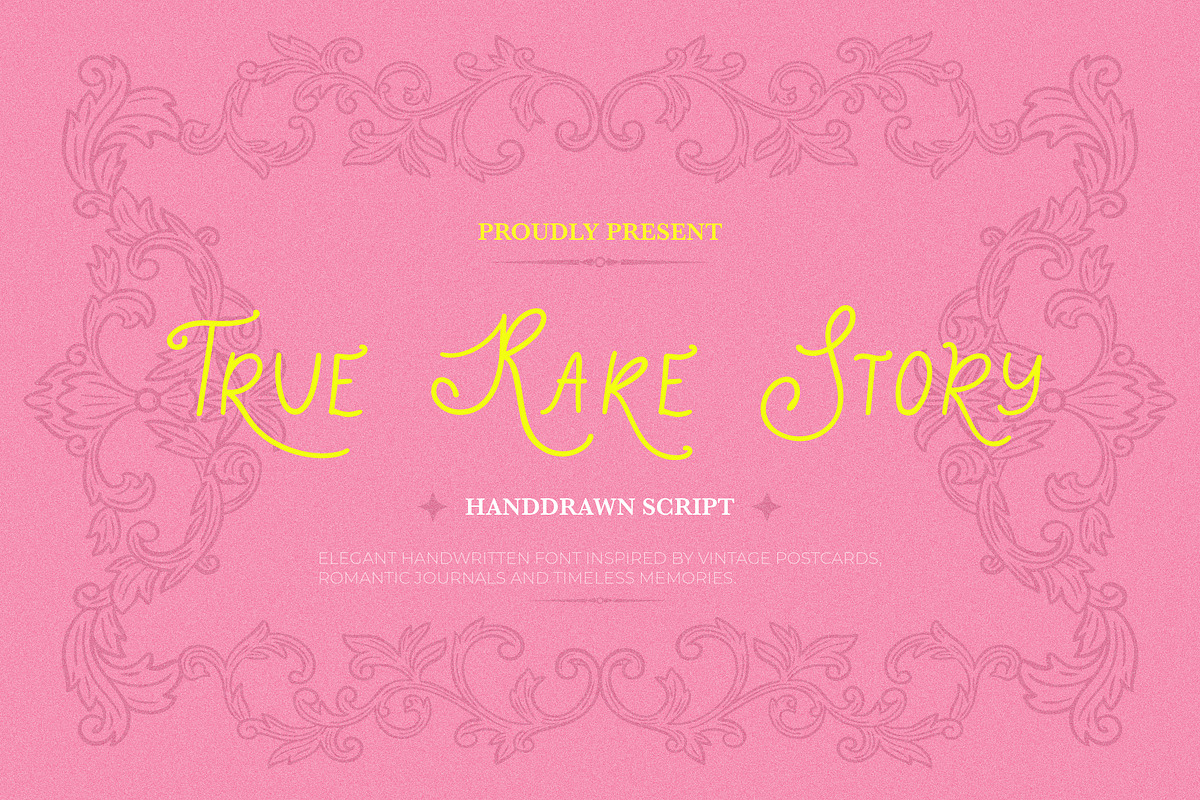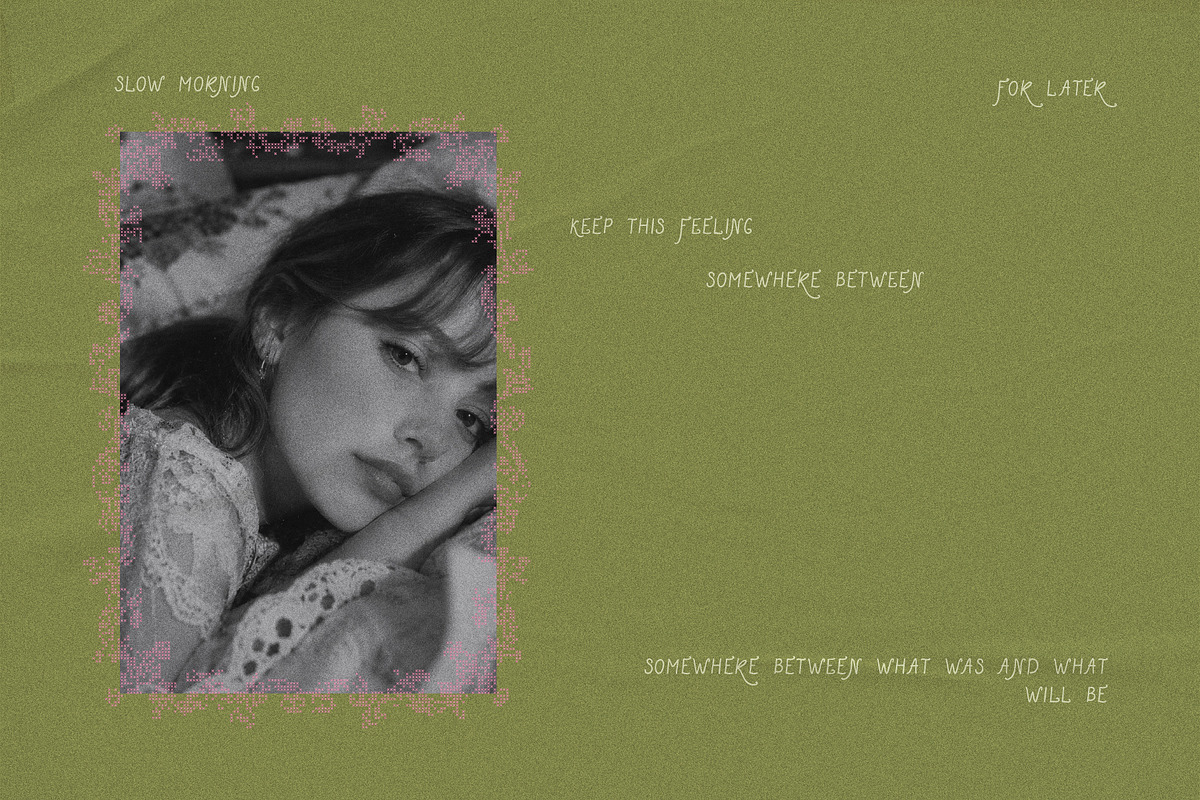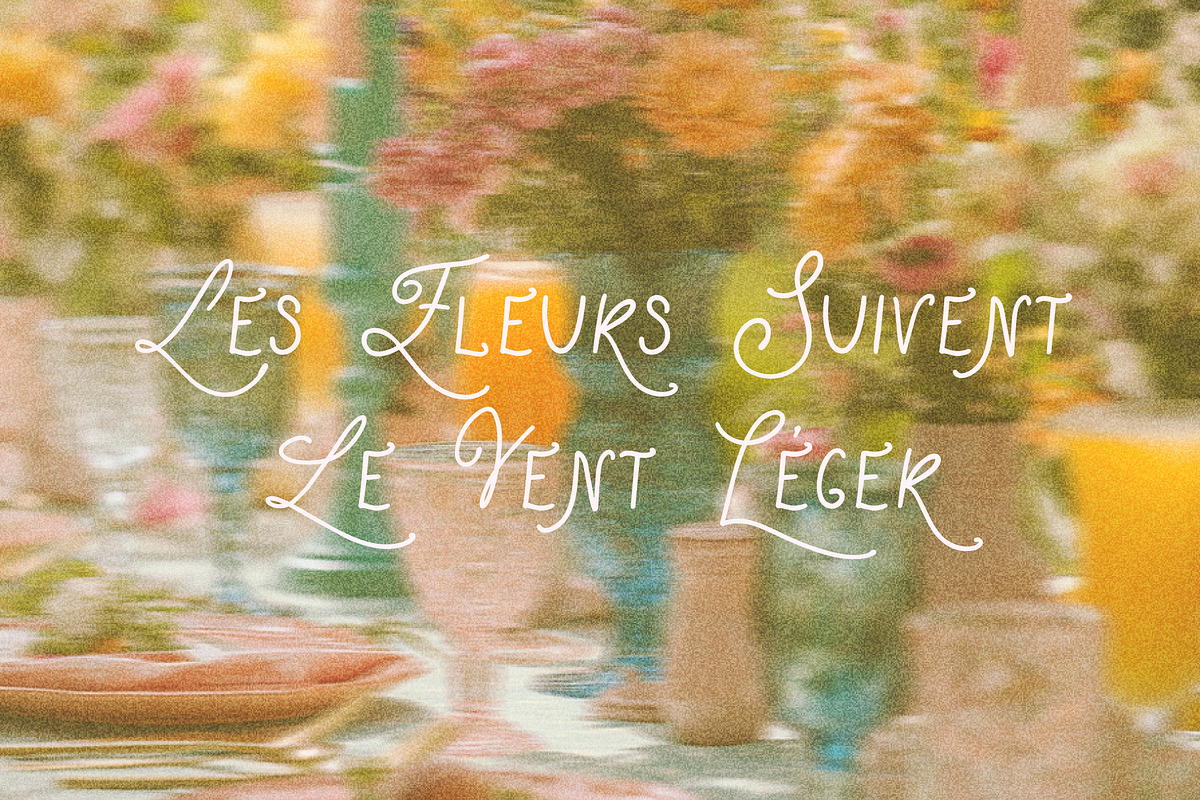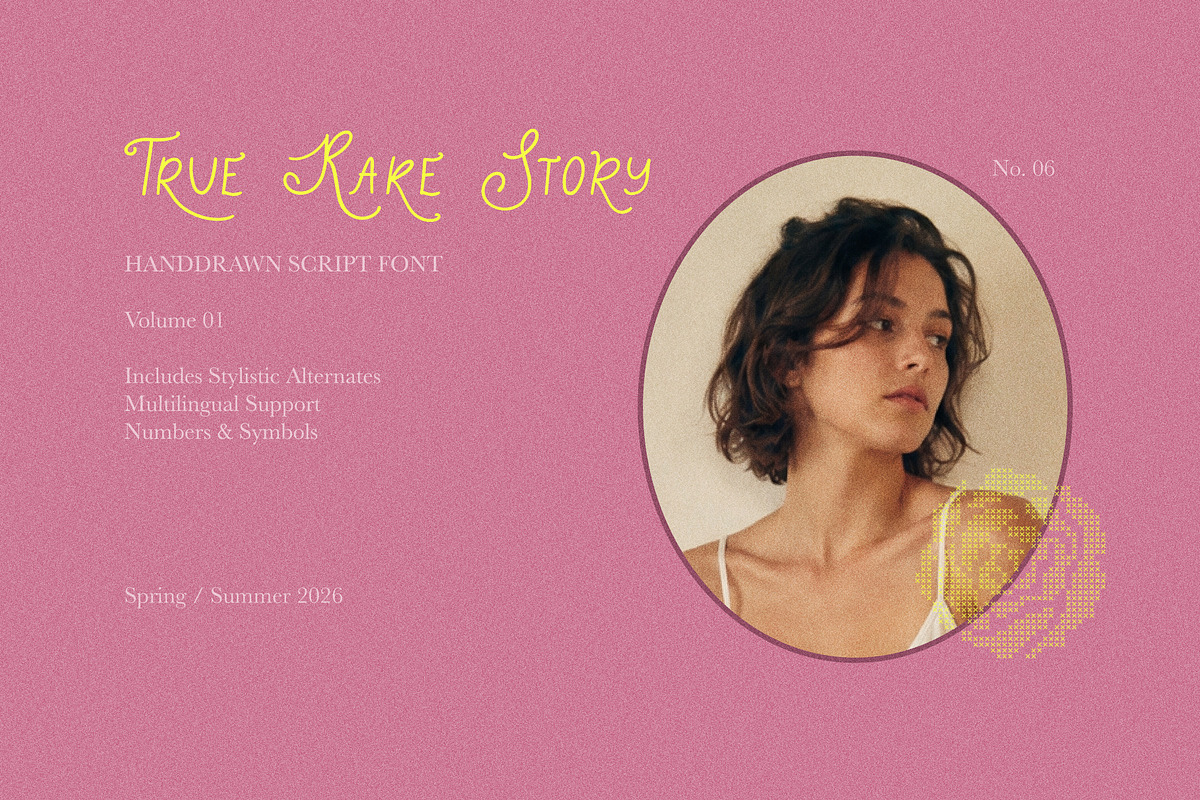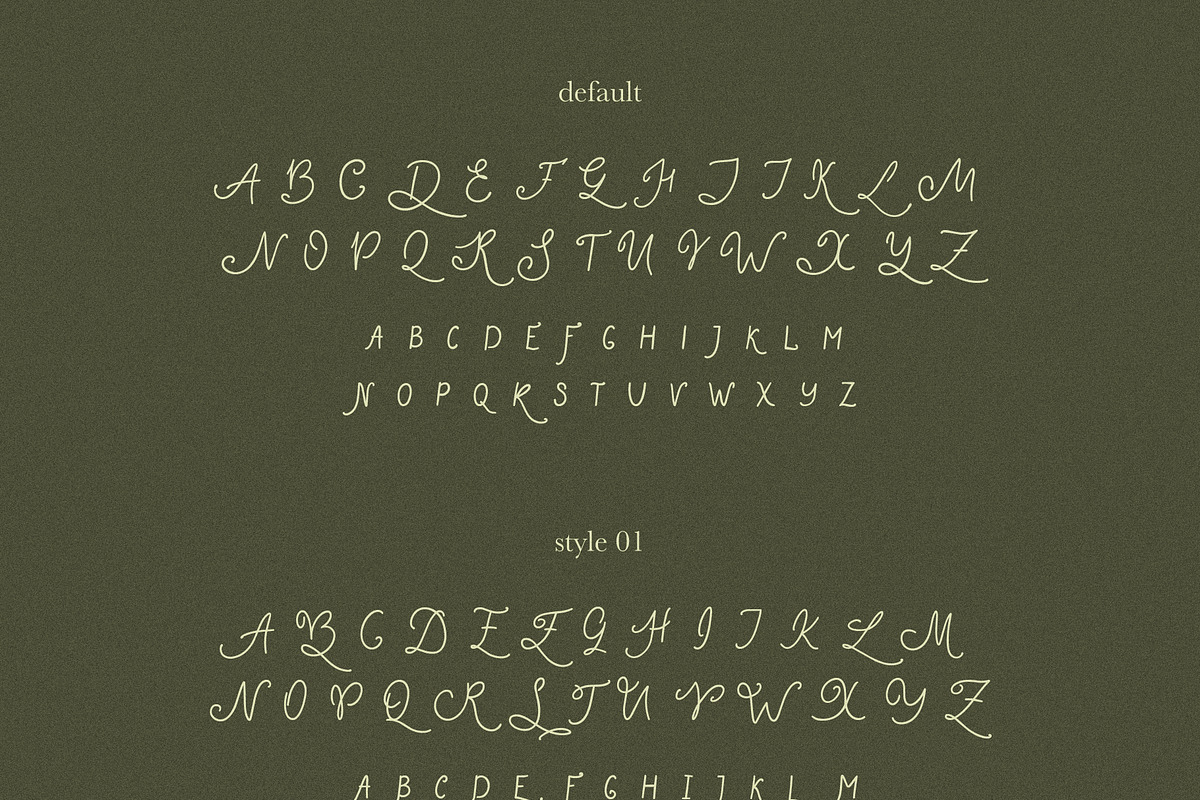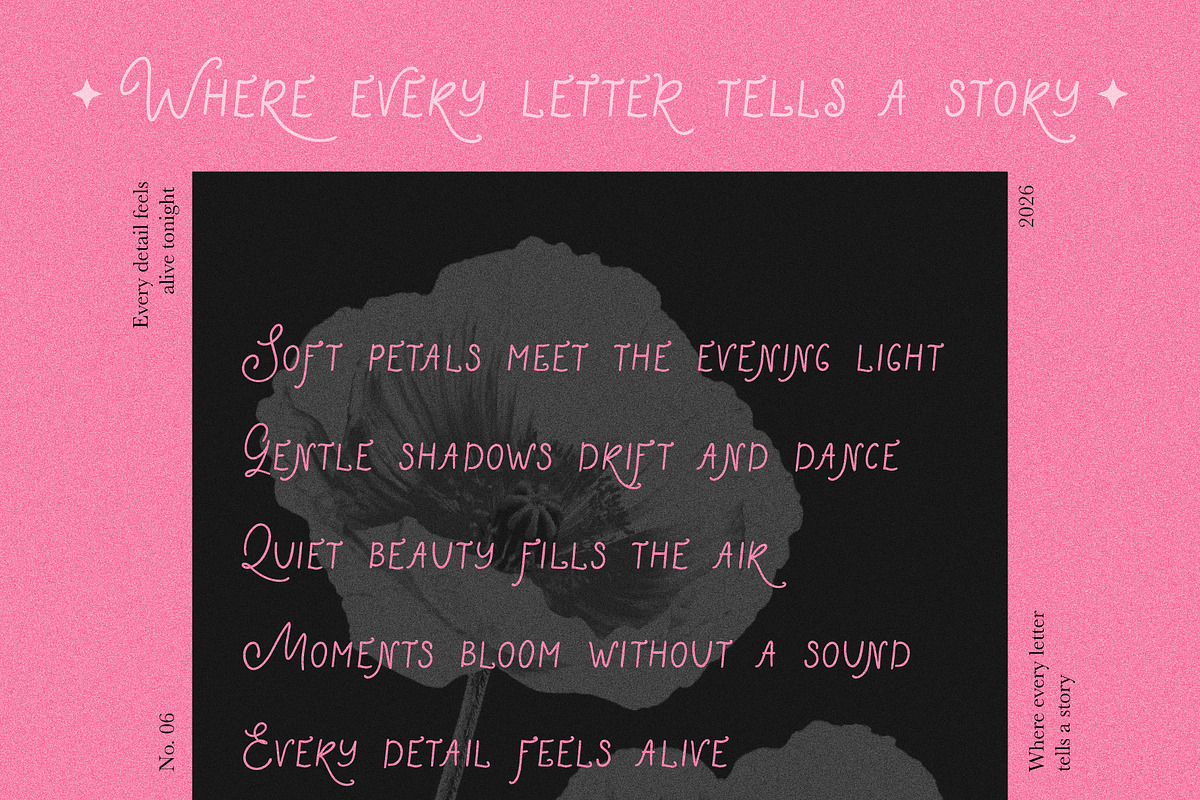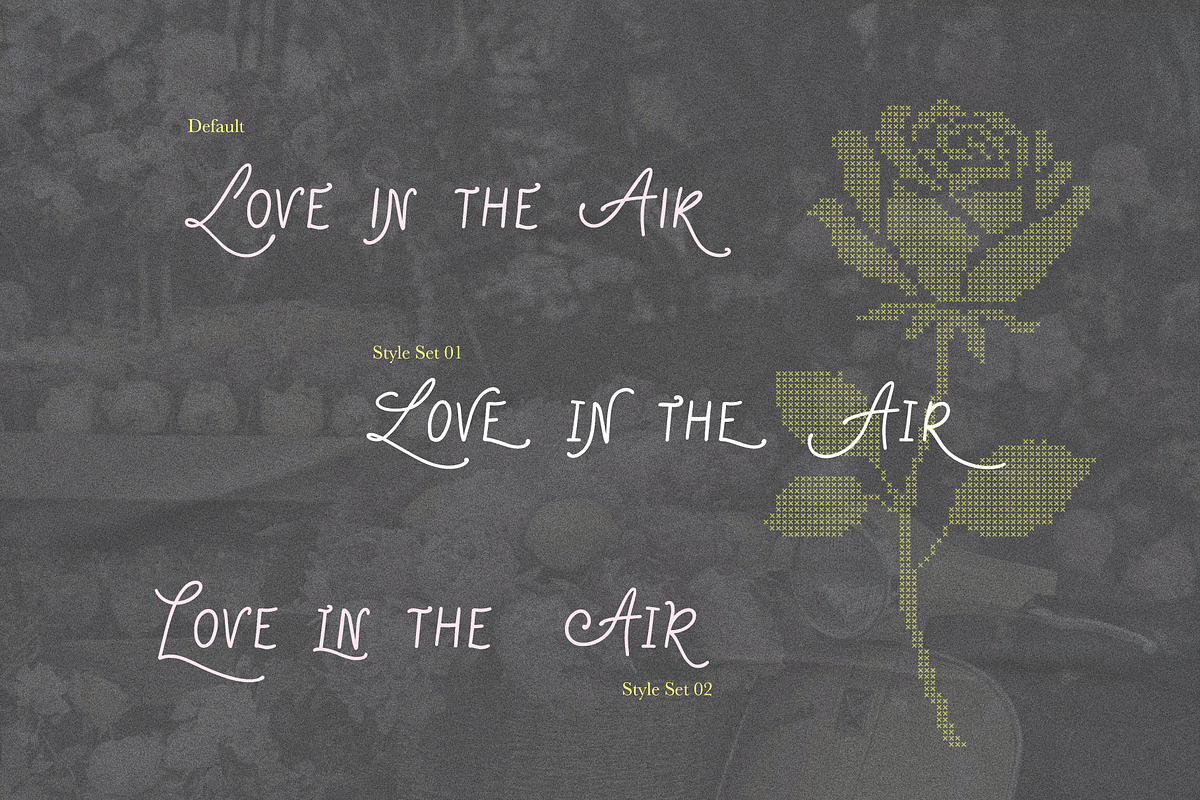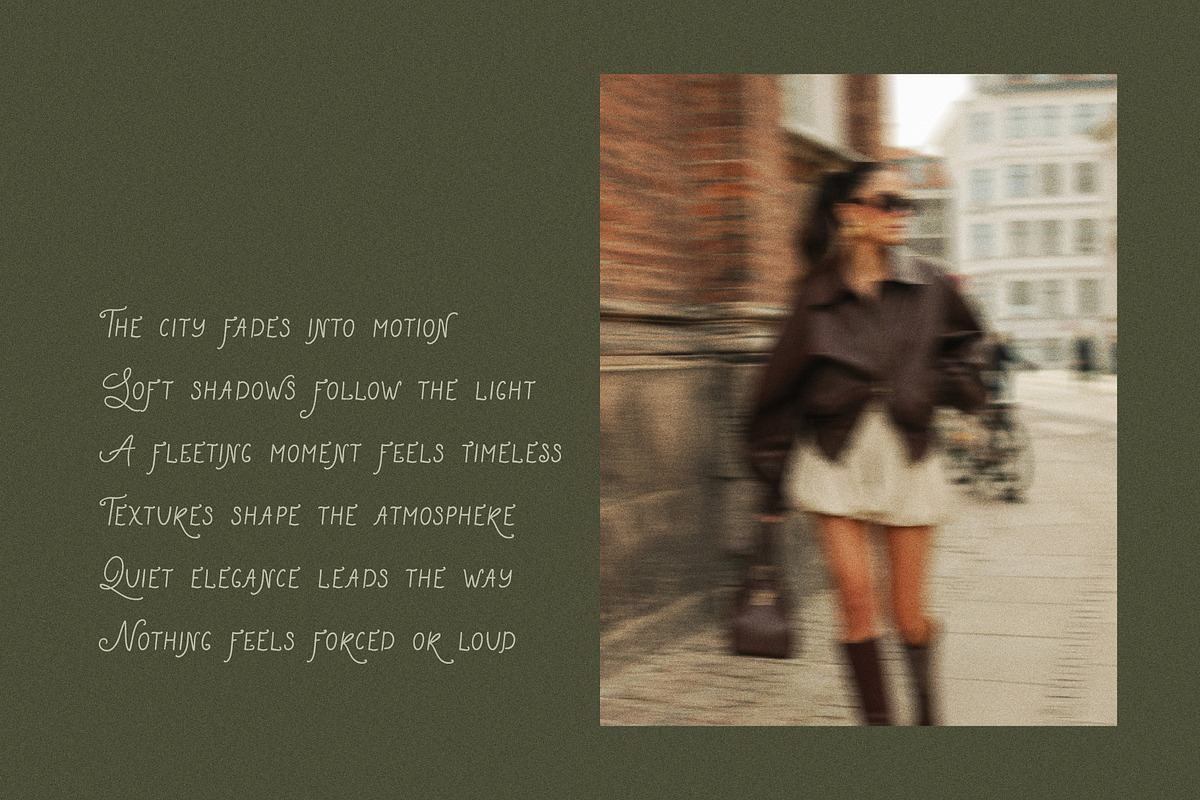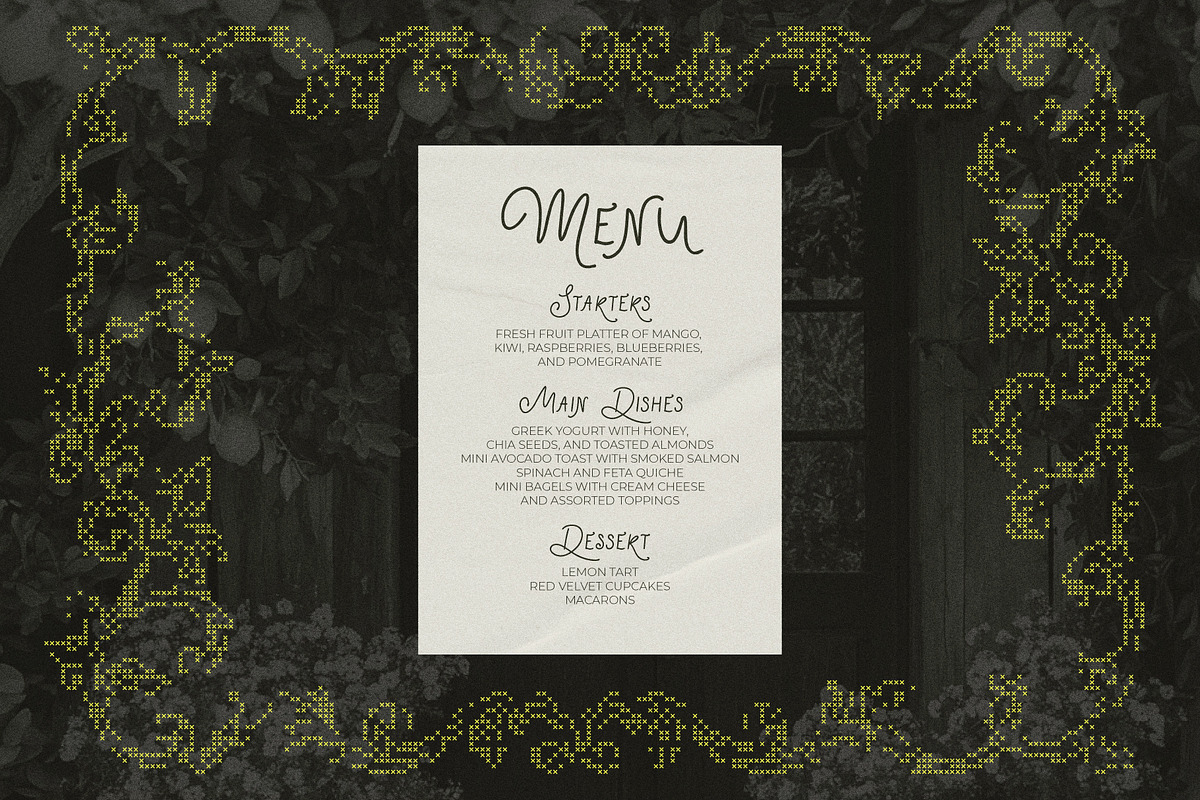
True Rare Story Font
True Rare Story is a whimsical hand-drawn script font with a romantic vintage feel. Inspired by scrapbook journals, dreamy editorials, cottagecore aesthetics, and nostalgic summer memories, this font brings warmth and personality to every design.
Featuring stylistic alternates, multilingual support, numbers, punctuation, and symbols, True Rare Story is perfect for branding, packaging, wedding invitations, logos, social media templates, book covers, posters, feminine marketing, and creative projects.